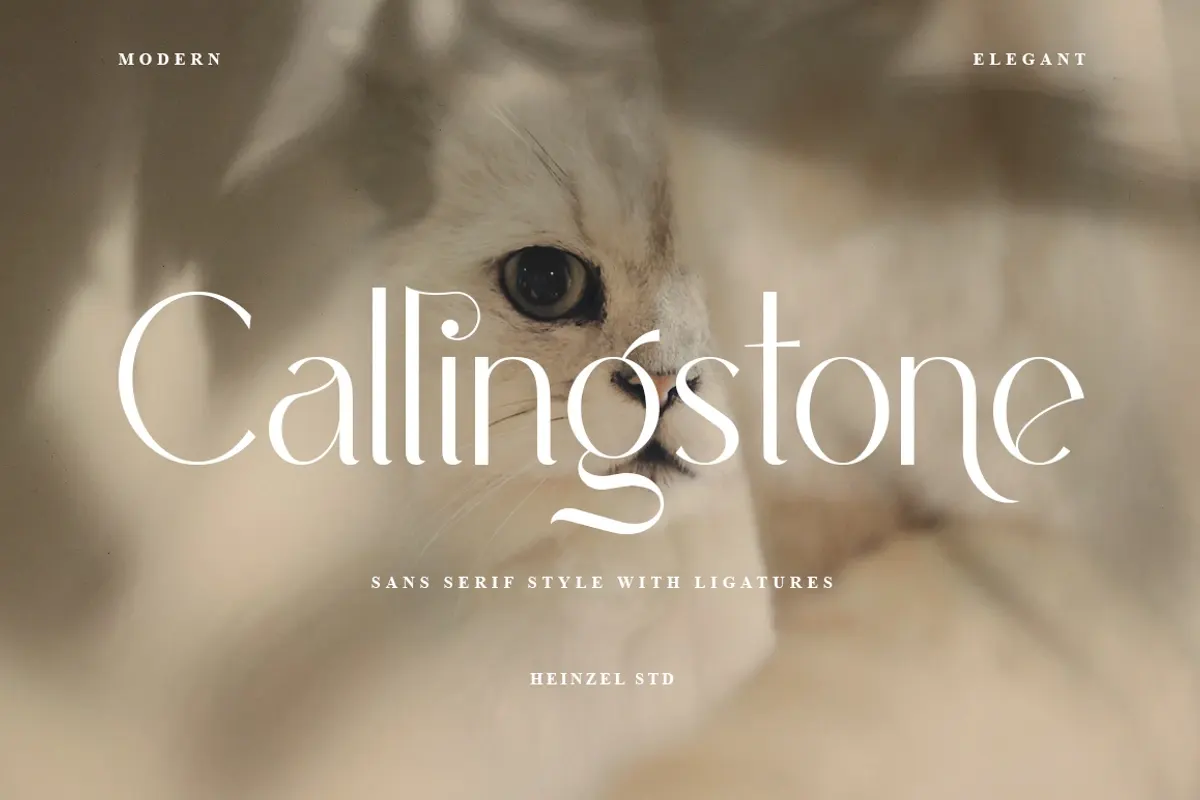
Callingstone Modern Sans Serif Font Free Download
Sleek, contemporary, and versatile, Callingstone Modern Sans Serif Font Free Download is a clean and elegant typeface designed for modern design projects. Perfect for branding, logos, websites, packaging, and social media graphics, this font delivers a fresh, minimalist aesthetic that works well across various applications.
With its geometric shapes, balanced letterforms, and clear structure, Callingstone provides excellent readability and a sophisticated look. Whether you're designing a high-end brand, a professional website, or stylish promotional material, this font adds a touch of modern refinement to your work.